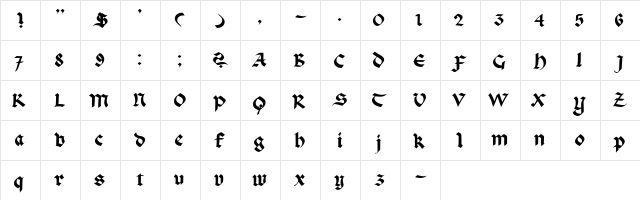
CallifontsA03PostScript Regular Font Preview
CallifontsA03PostScript Regular
Design Context for CallifontsA03PostScript Typeface
CallifontsA03PostScript brings a calligraphic fluidity to the page — its connecting strokes and expressive curves give it an unmistakably human quality.
Font Pairing: Combine CallifontsA03PostScript with a simple geometric sans for maximum contrast — the tension between flowing curves and clean structure is a classic typographic pairing.
Pro Tip: Pair CallifontsA03PostScript with a clean sans-serif for supporting text. The contrast between fluid script and geometric structure creates an elegant typographic hierarchy.